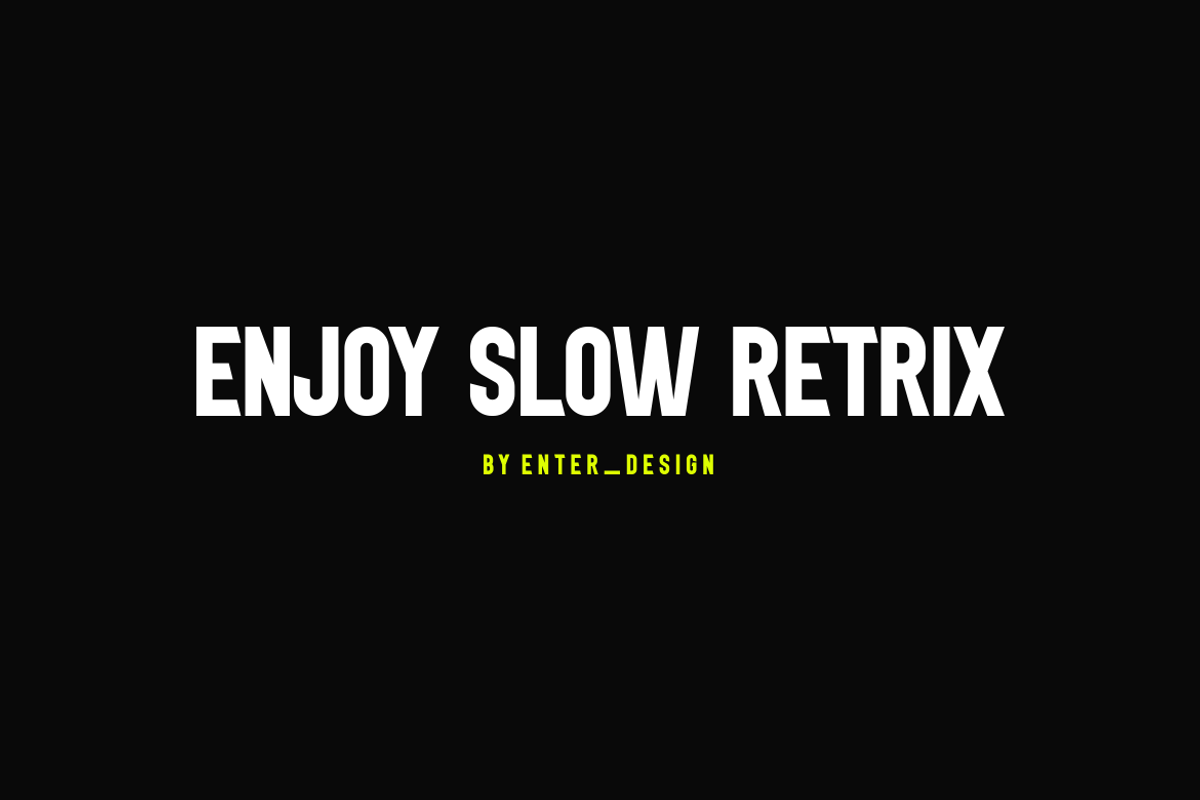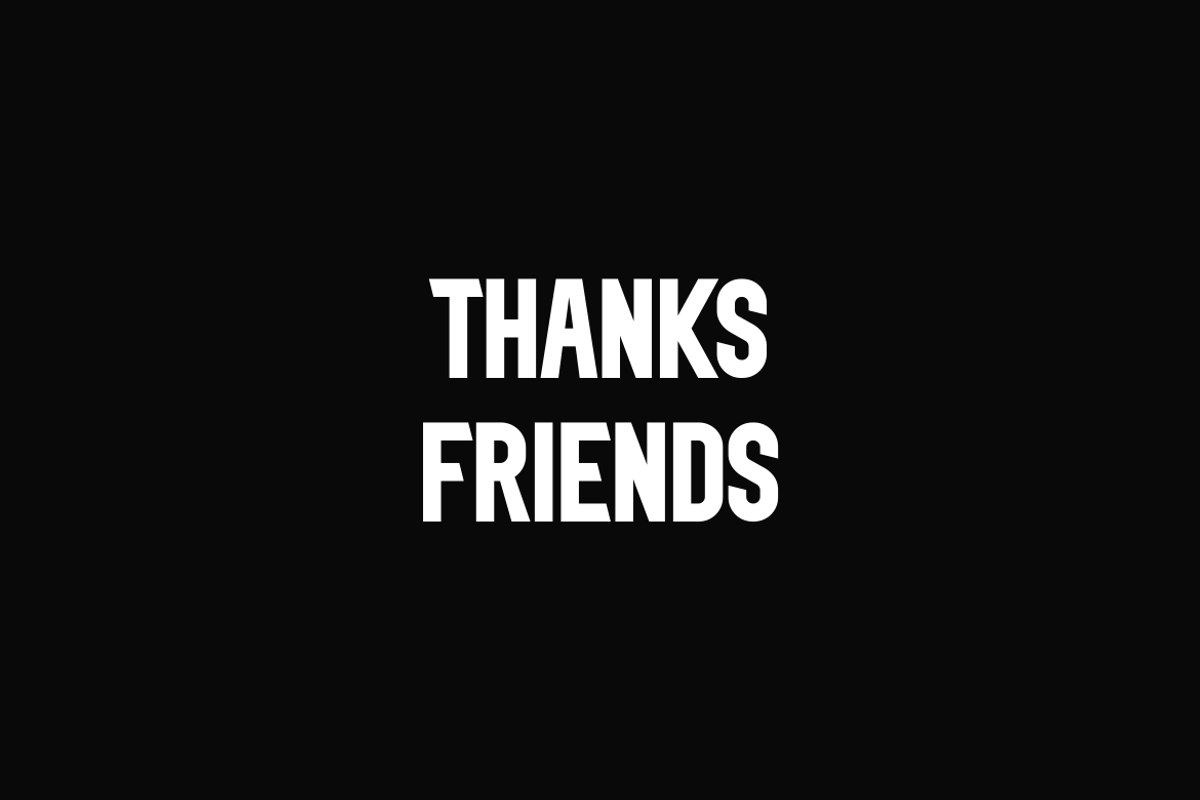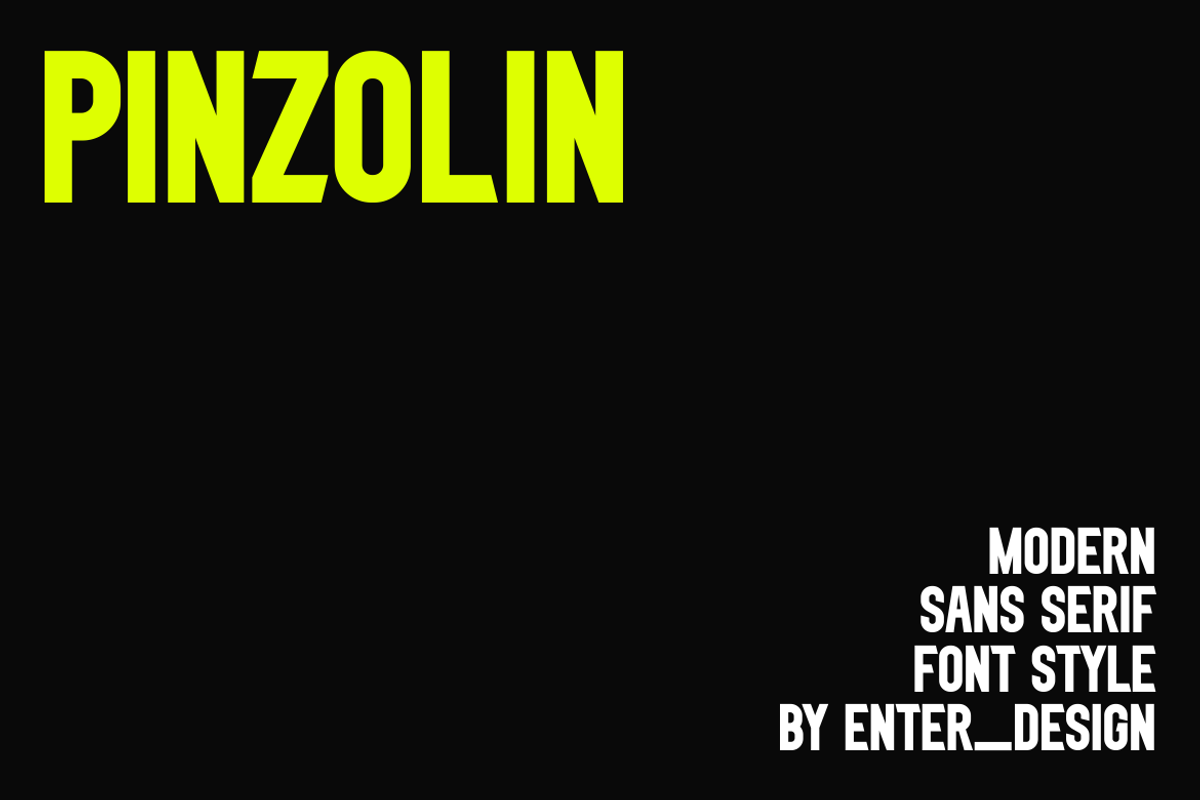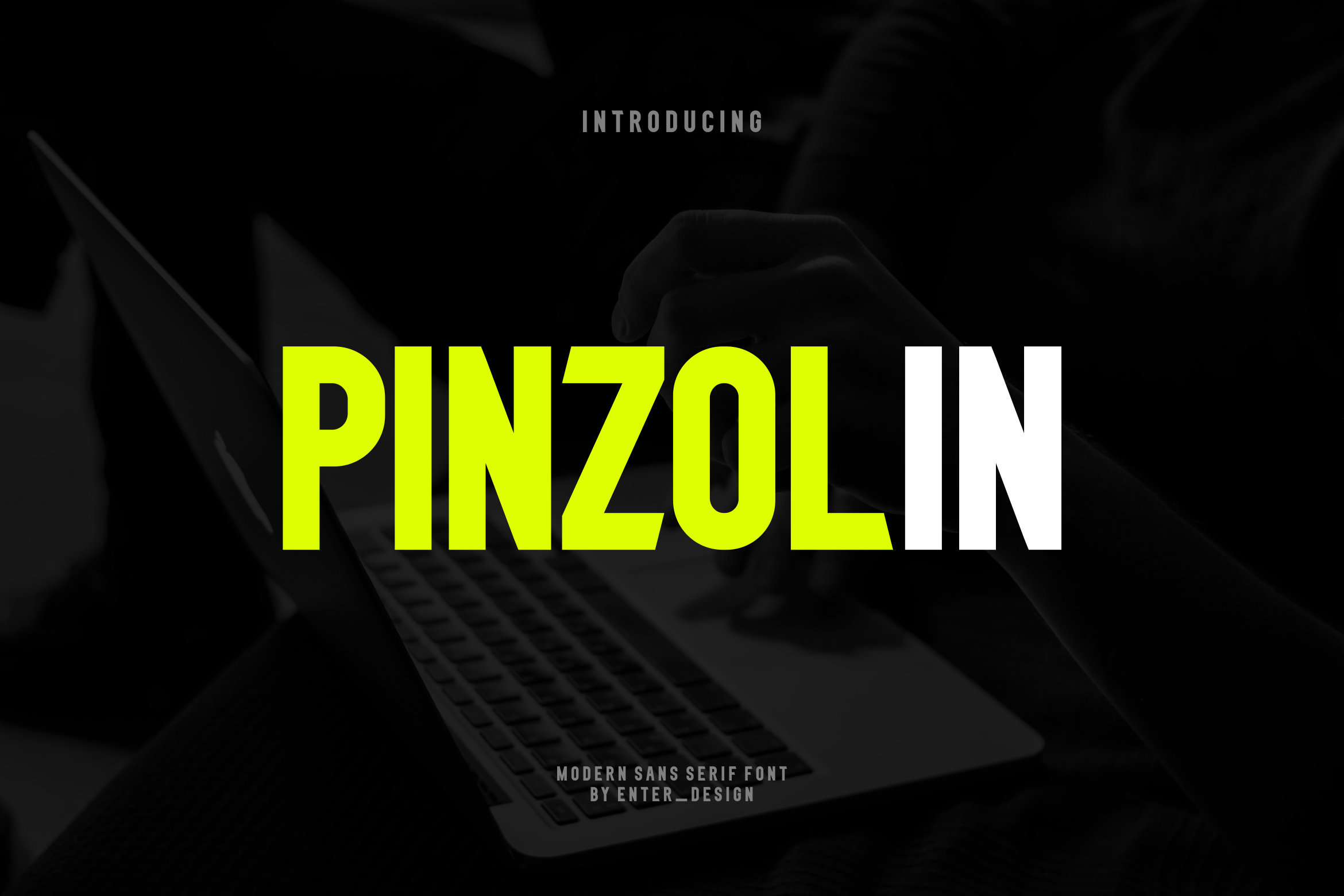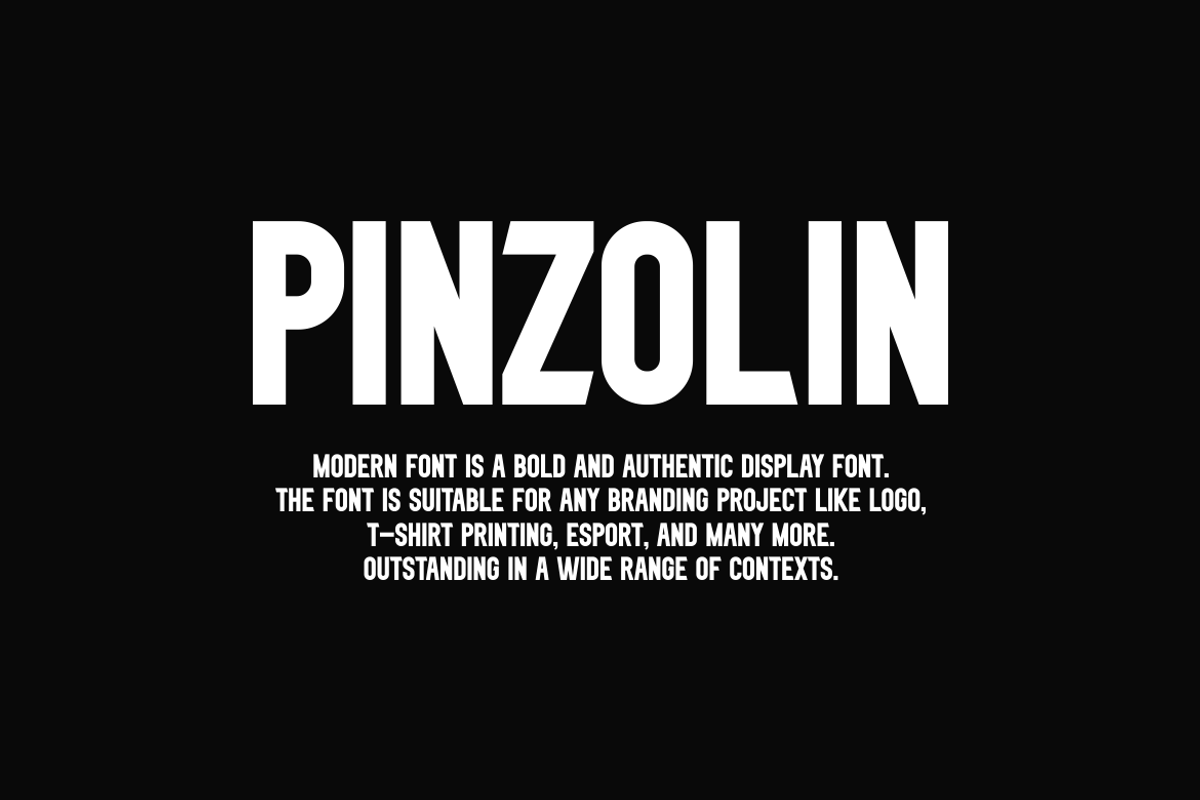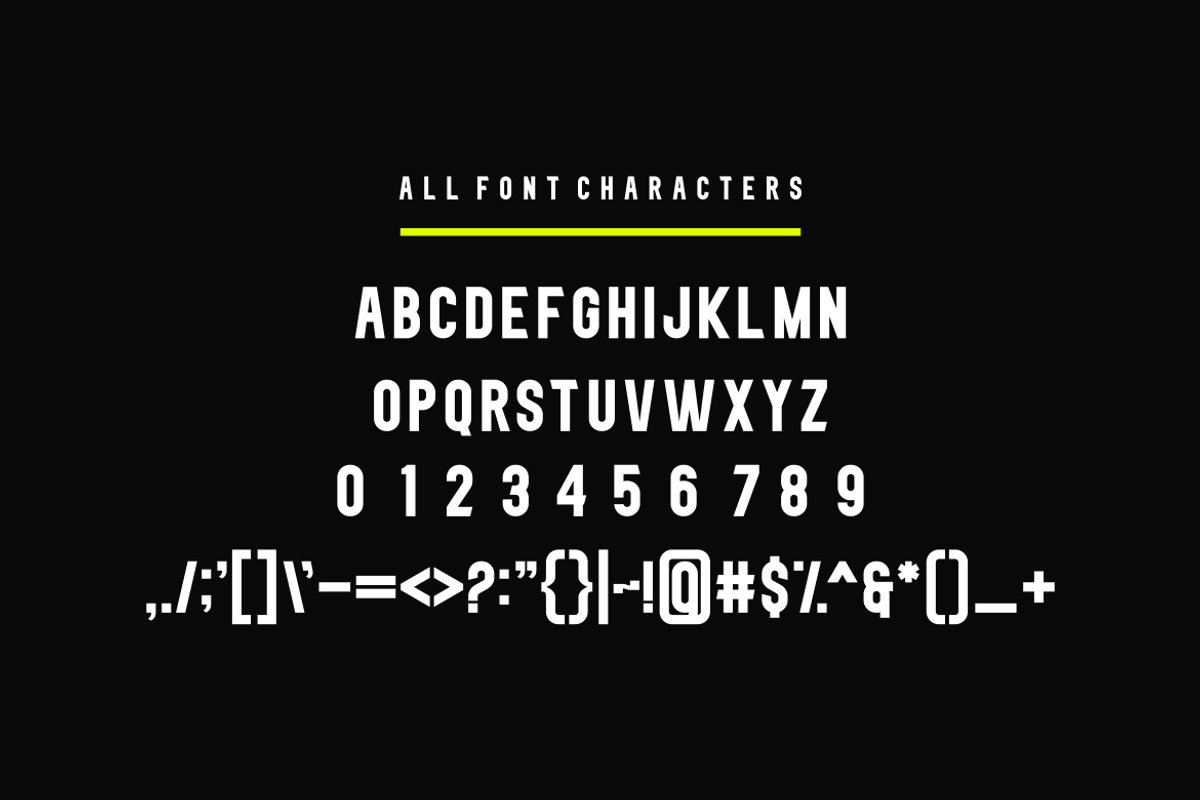
Pinzolin Font
Introducing our new product Pinzolin Font - Modern Font
Pinzolin Font - Modern Font is a bold and authentic display font. The font is suitable for any branding project like logo, esport, and many more. outstanding in a wide range of contexts.